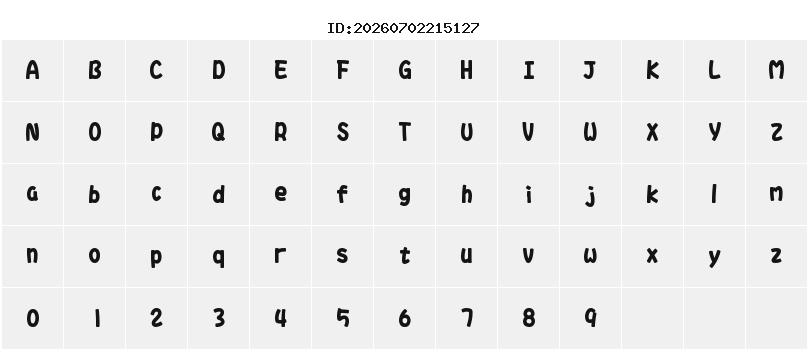
093-上首萌动体 Preview
• Font Name: 093-上首萌动体
• Font ID: 093-SSMengDongiTi:Version 6.00
• Full Font Name: 093-上首萌动体
• Version: Version 6.00 November 4, 2021
• PostScript Name: 093-SSMengDongiTi
• Character Count: 7569
• Manufacturer: 上首造字
About 093-上首萌动体.ttf
093-上首萌动体.ttf is a modern, elegant sans-serif font designed for ultimate readability and visual harmony. Perfect for branding, headlines, web design, and print materials.